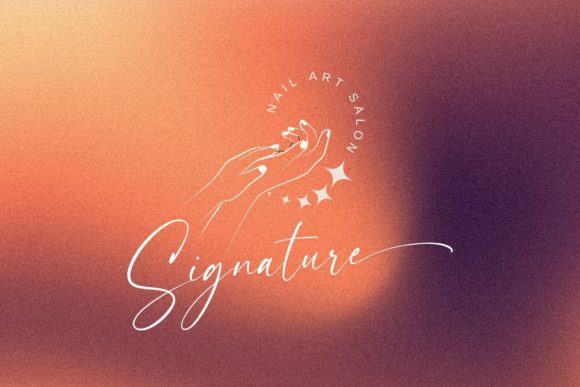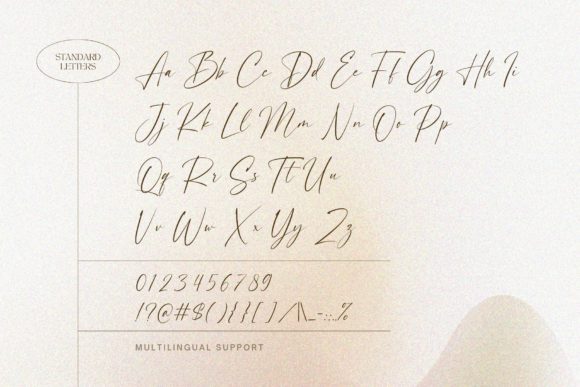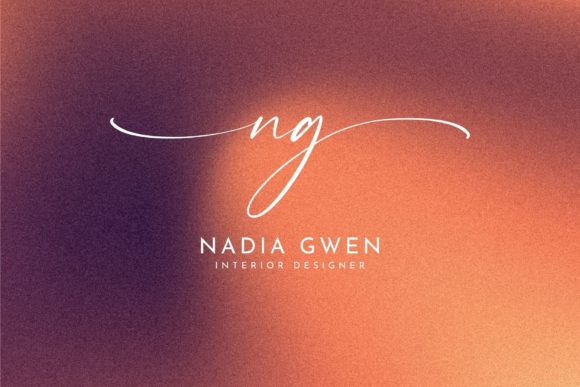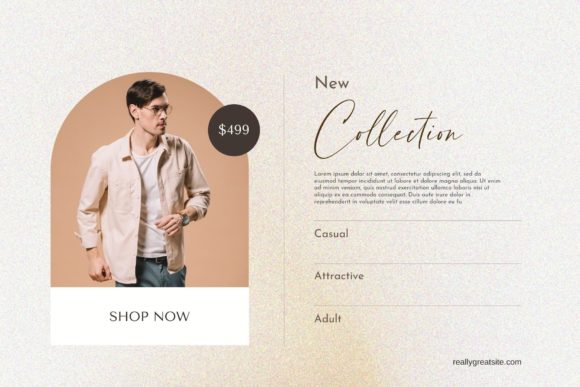
Beauty Handwriting Font
Beauty Handwriting is a free-flowing script font created for packaging products, invitation cards, flyers, mockups, event posters, and anything else that requires high-quality vibes. It has a beautiful and balanced character, that fits well with the large design pool.